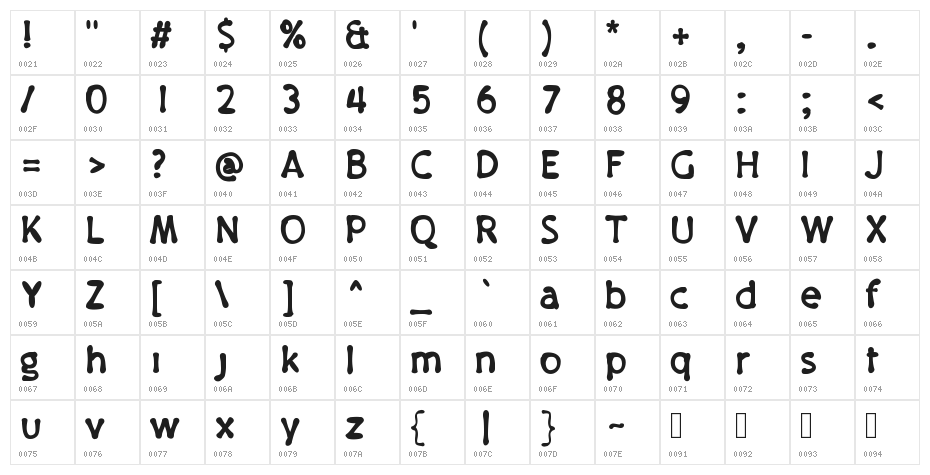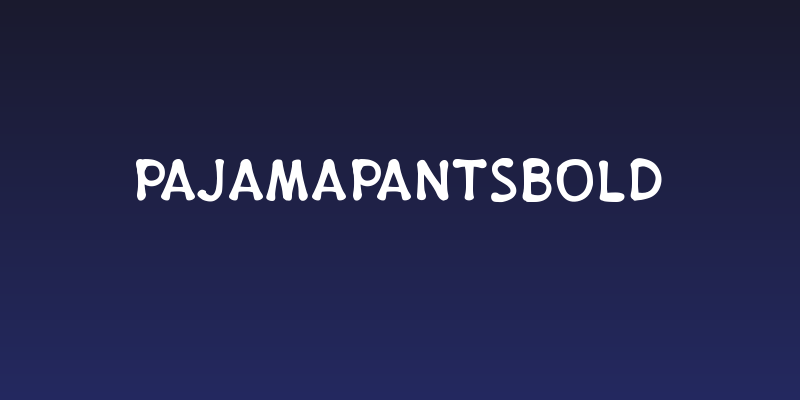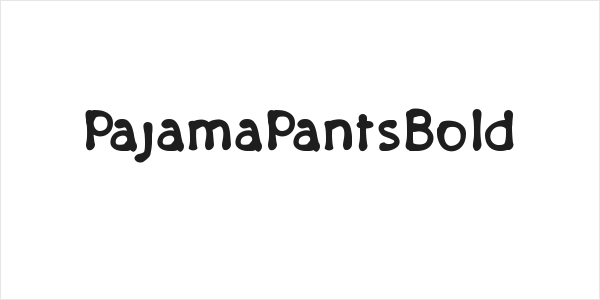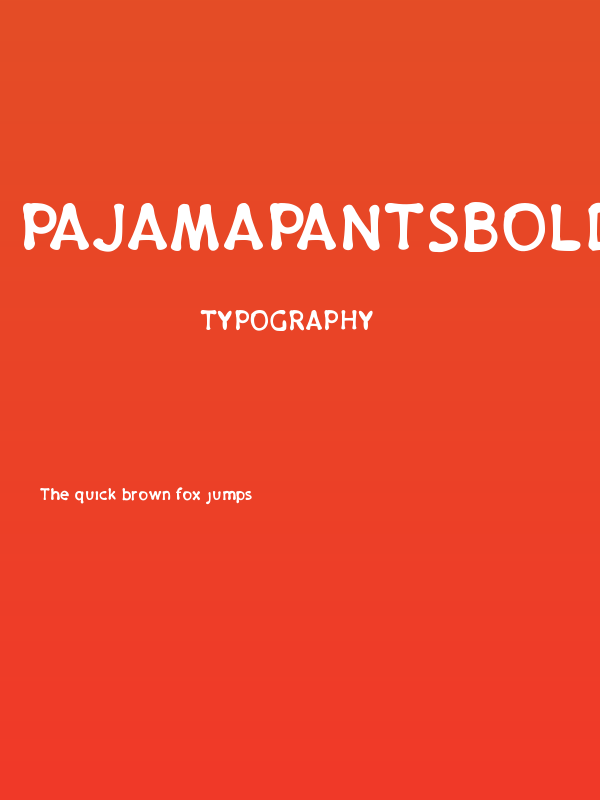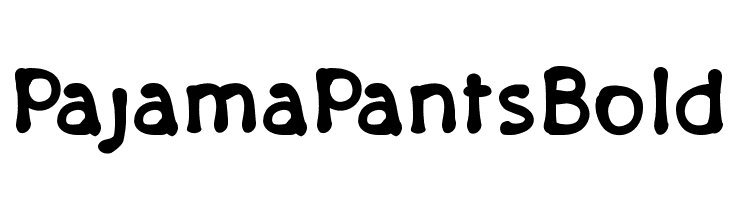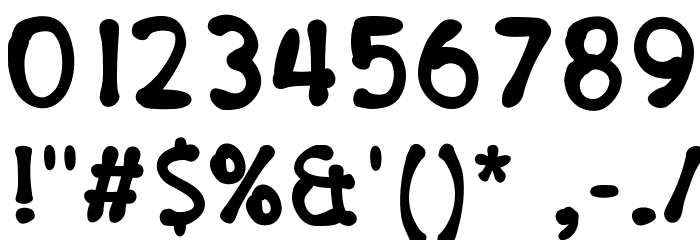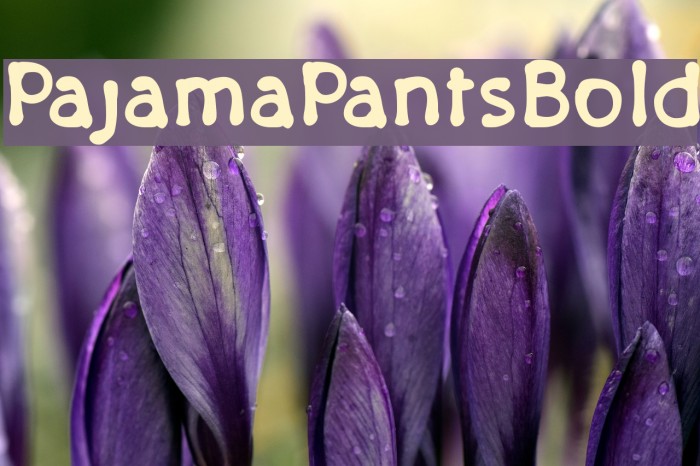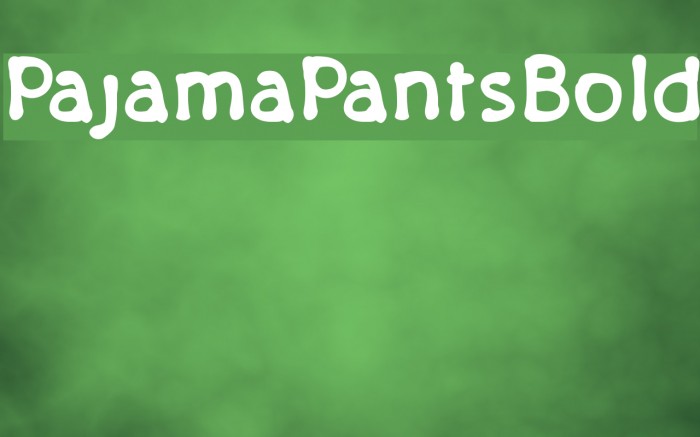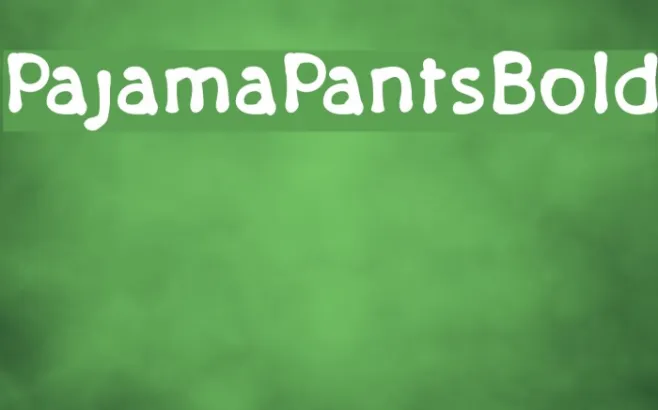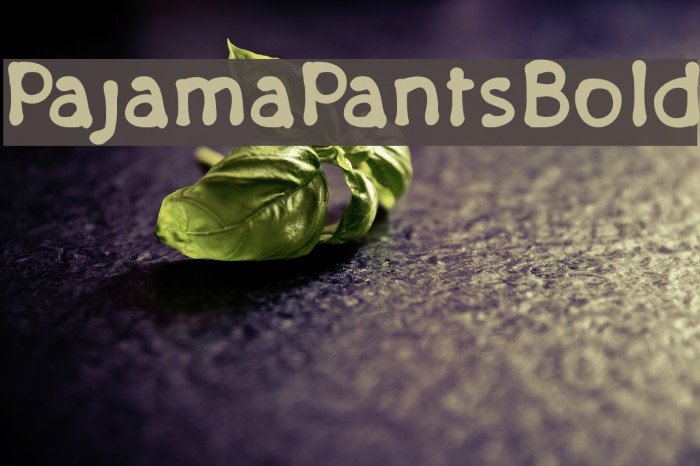
PajamaPantsBold Font
PajamaPantsBold Description
This playful and bold font features a hand-drawn aesthetic with rounded, irregular edges that give it a whimsical and friendly appearance. The characters are thick and substantial, making them highly legible and impactful. The font's casual style is reminiscent of handwriting, with a slightly uneven baseline that adds to its charm. It includes a full set of uppercase and lowercase letters, numbers, and a variety of special characters, making it versatile for various design needs. The bold weight and unique style make it ideal for projects that require a fun and approachable look.
| Proposed Projects | Ideal for children's books, playful branding, greeting cards, and casual posters. |